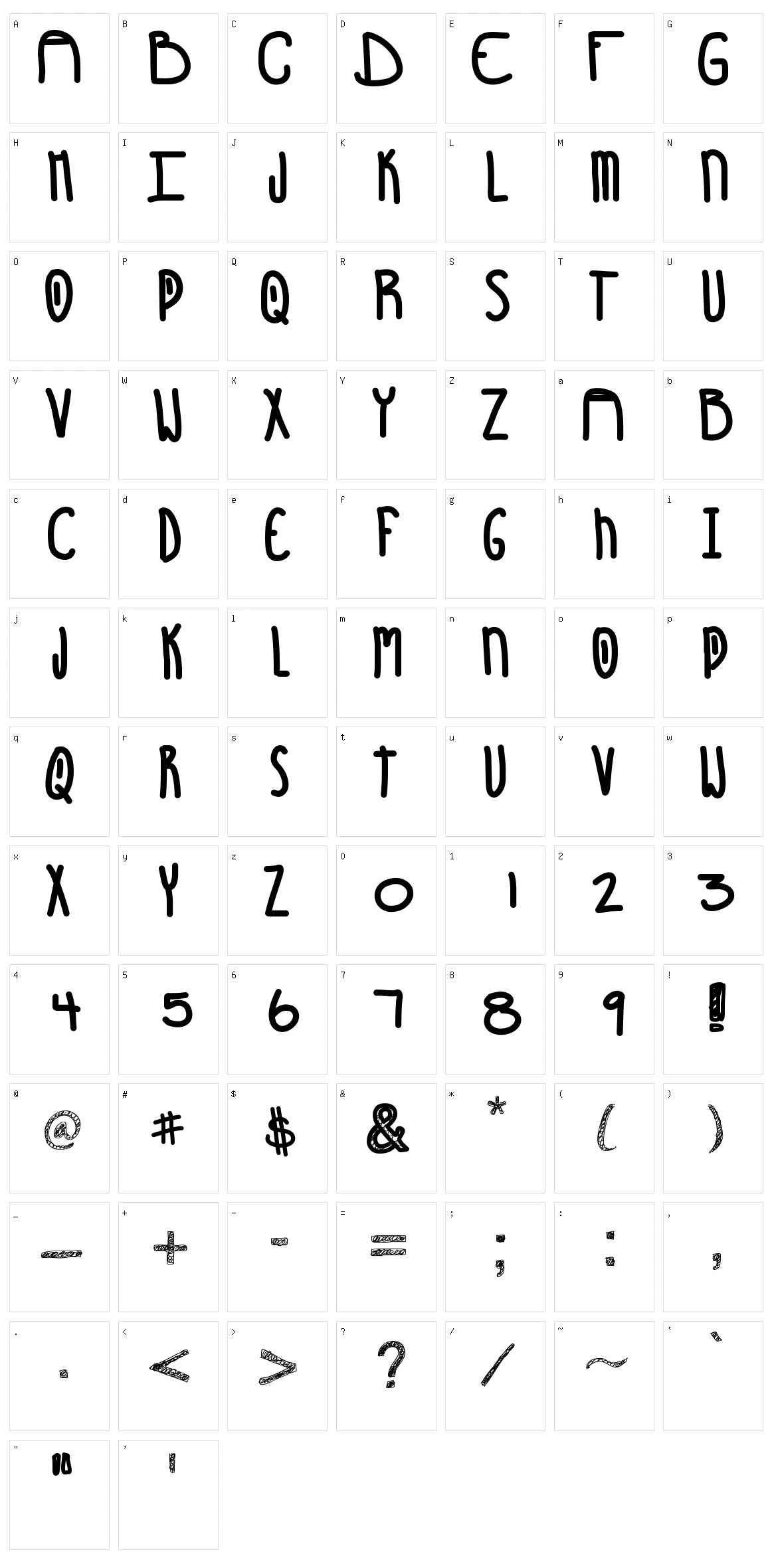
The free font Sunshines Coming is carefully designed by Des Gomez, showcasing a thoughtful balance of creativity and usability and falls under the Script font style. When you download the ZIP file, it contains only 38.08 KB of font files, making it lightweight and quick to download. Please review the license details below to understand permitted usage and distribution rights. If license information is not available, we recommend using this font for personal projects only or contacting the author directly for commercial usage permissions.